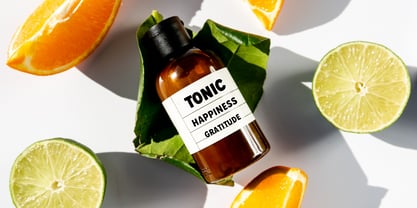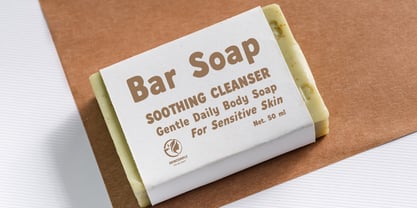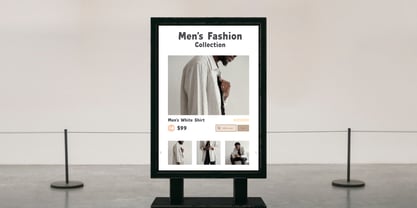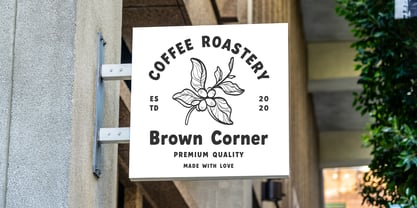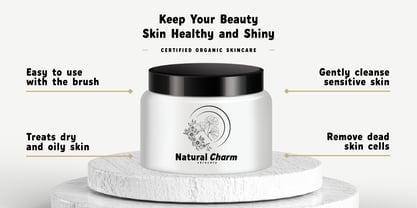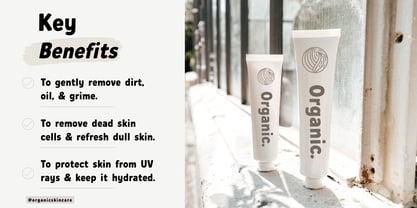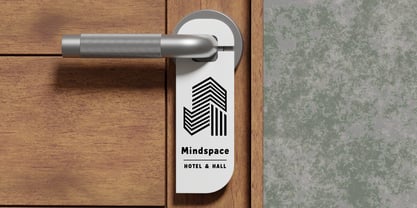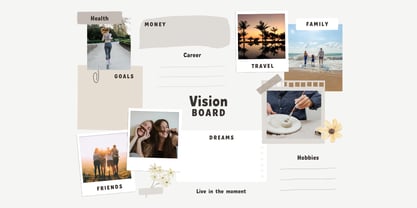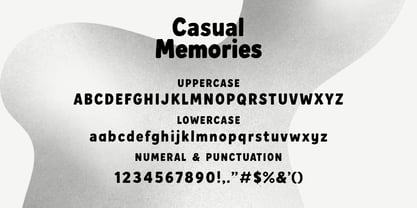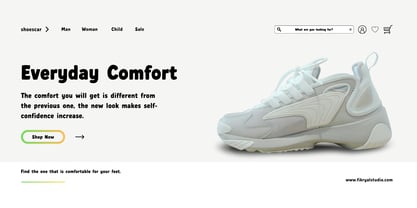
Casual Memories
Casual Memories is a casual sans serif font with a soft touch, designed to bring versatility and style to your projects.
• 6 font styles: Light, Light Italic, Regular, Italic, Bold, Bold Italic
• Uppercase & lowercase letters
• Numbers & punctuation
• Multilingual support
Key Features:
• Modern and minimalist design with a friendly vibe
• Works well for both headlines and body text
• Perfect balance between casual and professional style
• Highly versatile for various design applications
Recommended For:
• Branding & logo design
• Editorial & magazine layouts
• Posters & advertising
• Packaging & product design
• Social media graphics & web design
Bring a fresh and approachable look to your designs with Casual Memories – Casual Sans Serif Font.